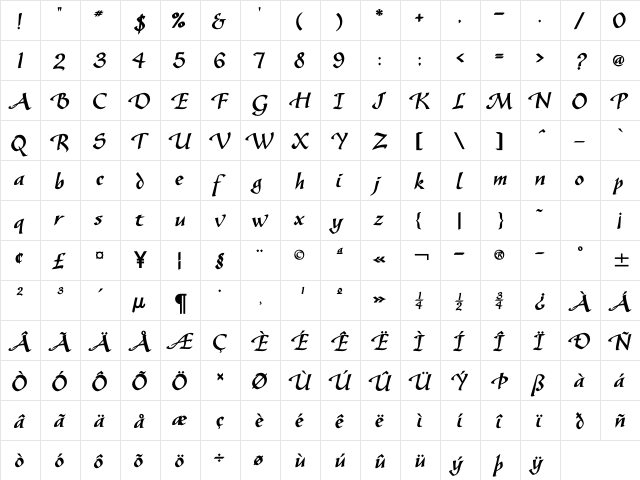
Gaze Normal
| Foundry | Francis Lestingi for Letterhead Fonts |
Design Context for Gaze Typeface
Gaze offers clean, dependable letterforms without strong stylistic allegiance, making it a practical choice for designers who need flexibility.